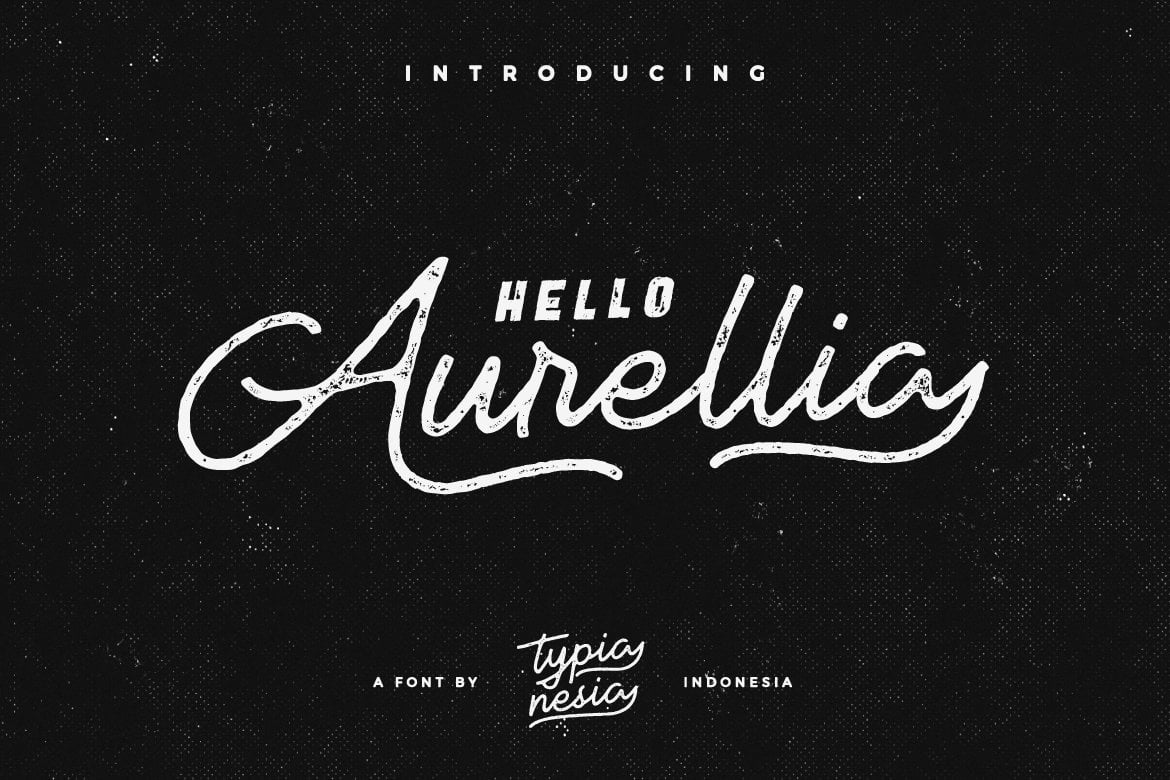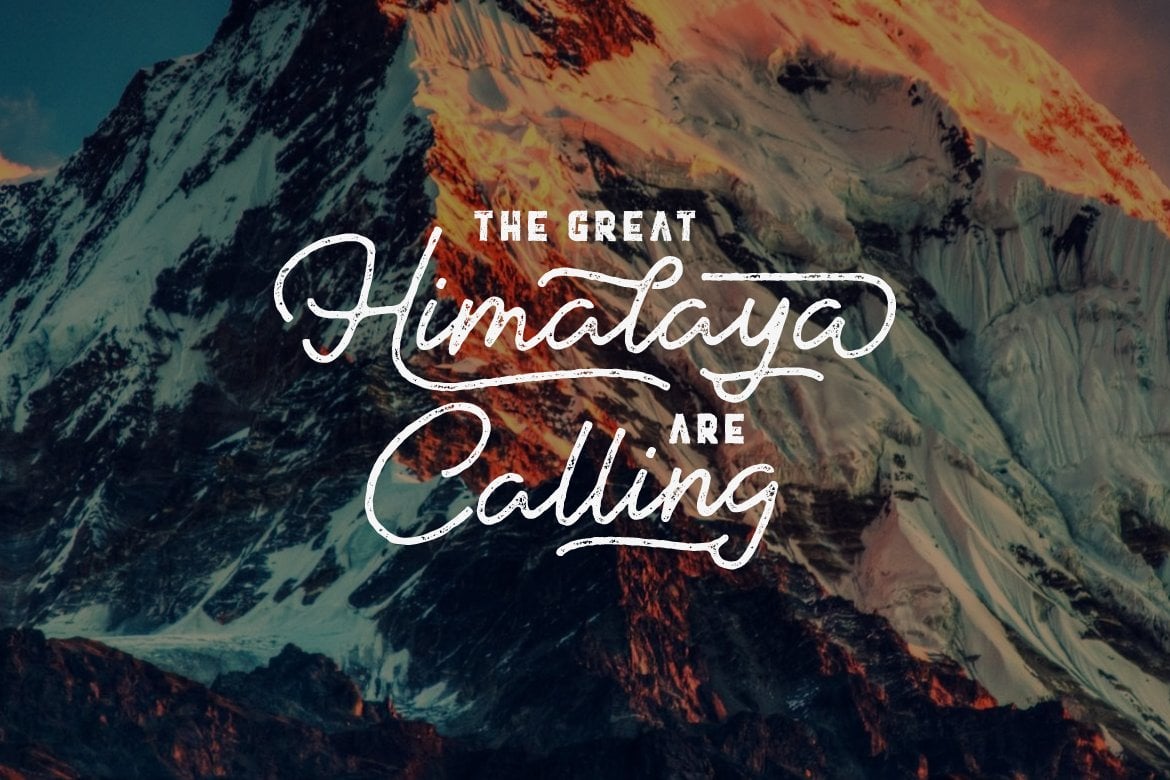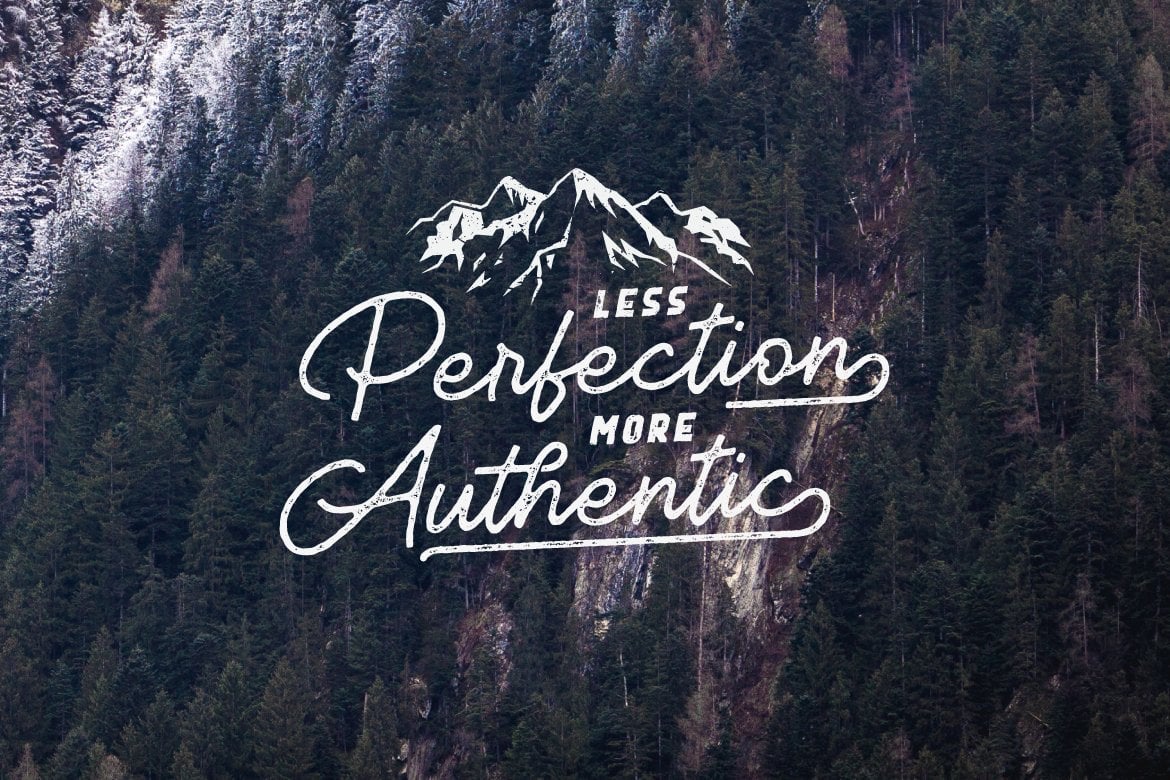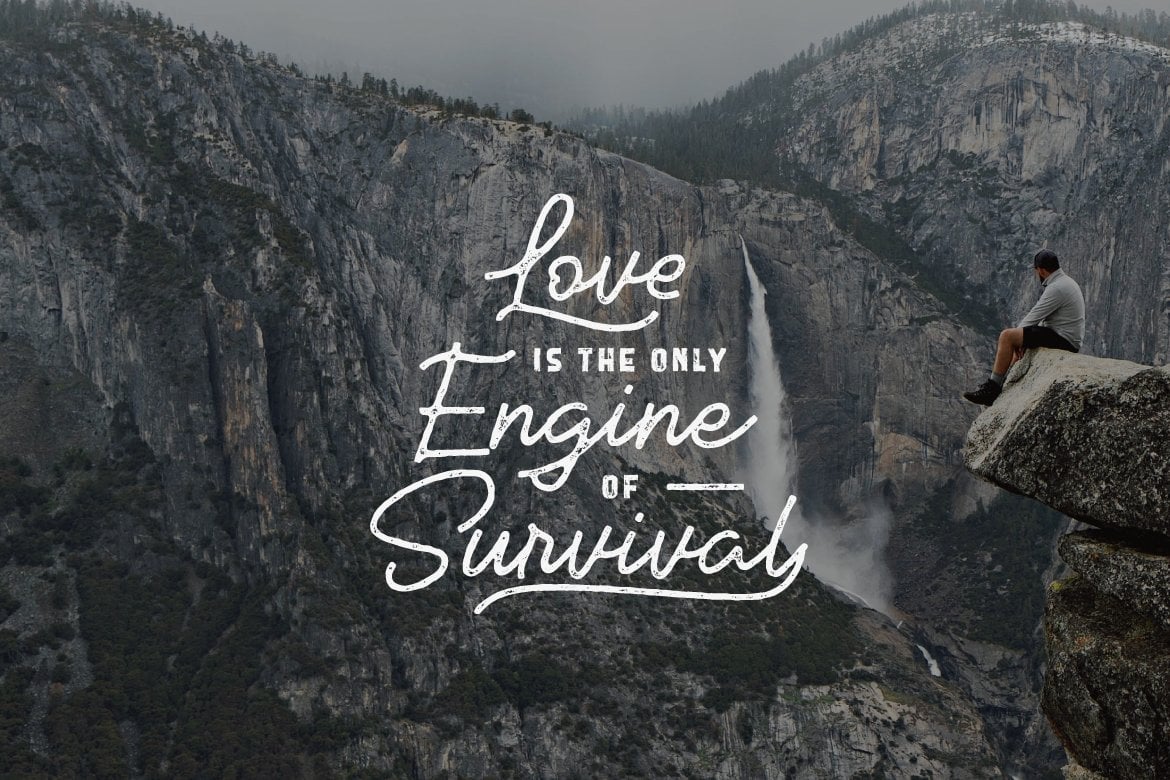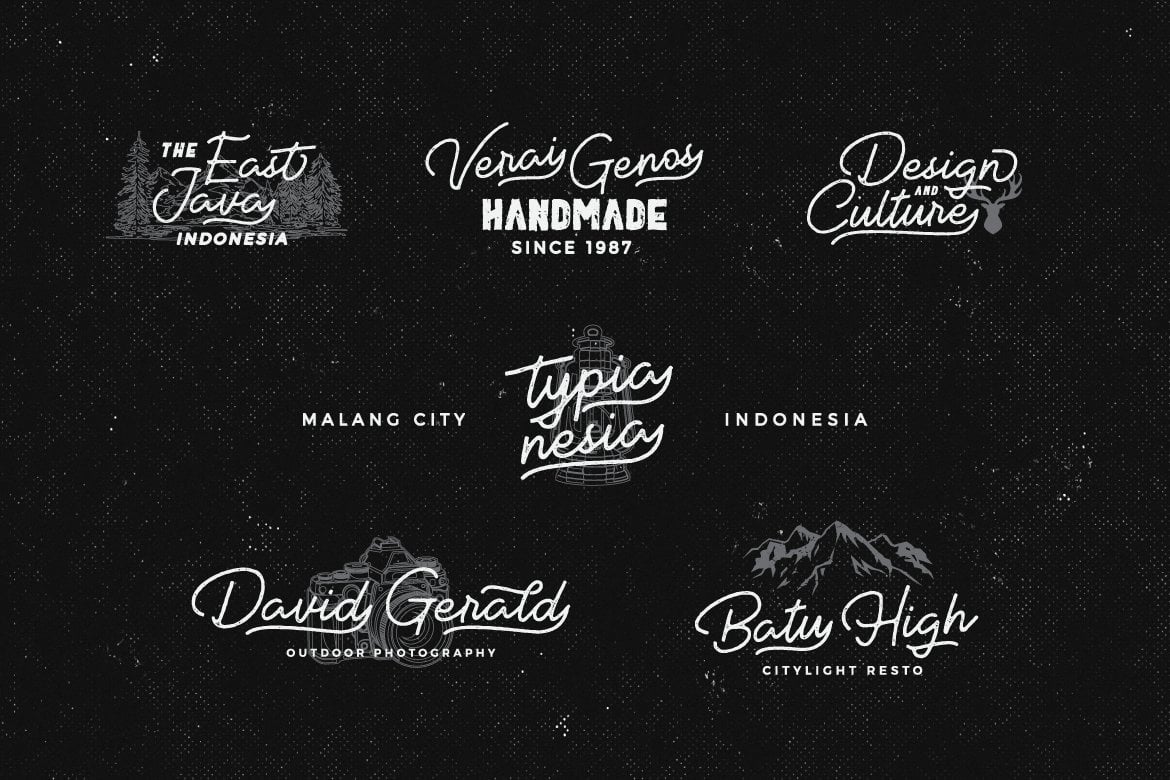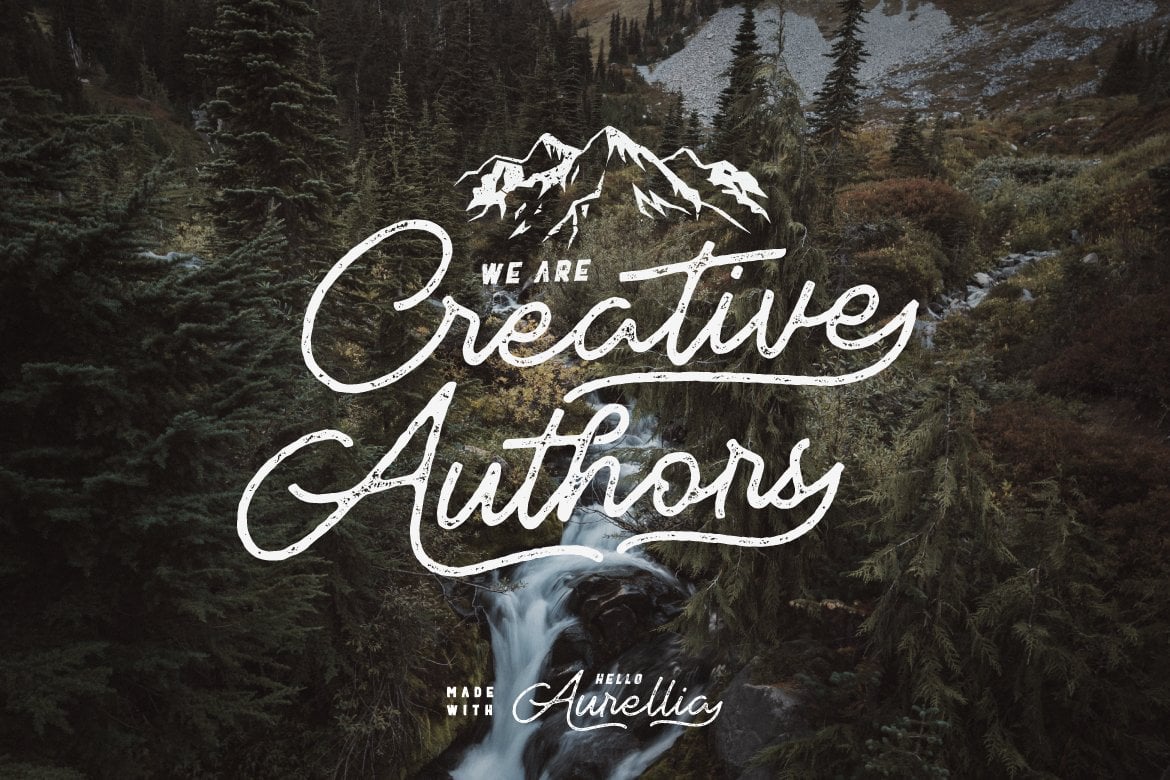
Aurellia Vintage Font
Aurellia is handcrafted textured script font inspired by vintage lettering. It can be used in different purposes: lettering and logotype, labels, t-shirts, product packaging, invitations, advertising, and any classic / vintage typography design projects.
Aurellia font – comes with upper and lowercase Standard Characters, Punctuation, Numerals. And other Glyphs variation of the OpenType features such as Stylistic Alternates, Stylistic Sets, Swashes and some Ligatures.